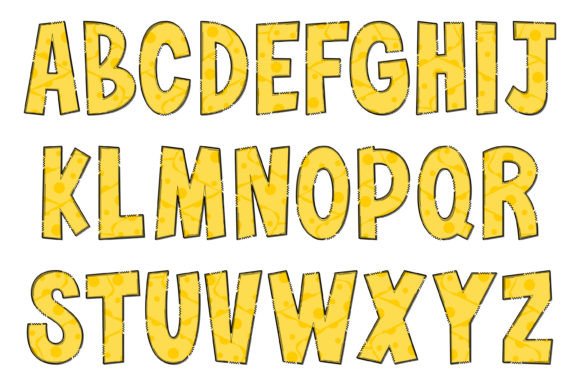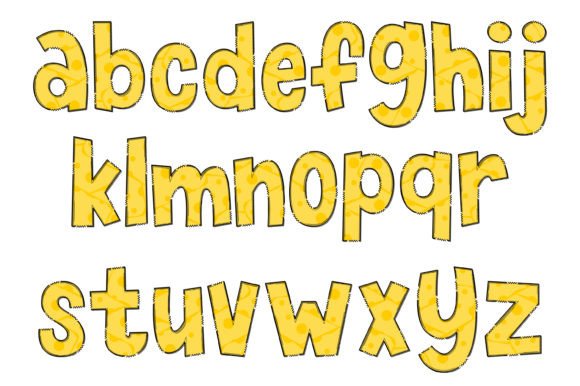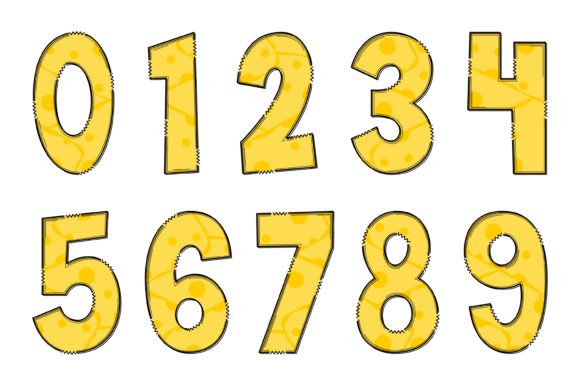
Introducing the Playful Cheese Slice Font: Elevate Your Designs with a Touch of Whimsy
Are you a designer, crafter, or DIY enthusiast looking for a font that adds a playful and artistic feel to your projects? Look no further than the Cheese Slice font! This delightful font is perfect for creating engaging designs that capture the imagination of your audience. In this article, we’ll explore the versatility of the Cheese Slice font, its compatibility with various design software, and provide valuable insights on how to make the most of this fantastic font.
The Perfect Font for Playful Designs
The Cheese Slice font is often used in designs that aim to convey a playful or artistic feel, such as children’s books, posters, invitations, greeting cards, and more. Its whimsical and colorful nature makes it an excellent choice for projects that require a touch of fun and personality. For instance, children’s books often utilize fonts that are not only visually appealing but also easy to read, creating an engaging reading experience for young audiences.
Imagine creating a children’s book that transports your readers to a world of wonder and magic. With the Cheese Slice font, you can add a dash of playfulness to your text, making it perfect for titles, headings, and even body text. The font’s unique design elements will capture the attention of your readers and make your book stand out from the crowd.
Unlocking the Full Potential of the Cheese Slice Font
Now that we’ve covered the technical aspects, let’s explore the creative possibilities of the Cheese Slice font. With its playful and artistic feel, this font is perfect for a wide range of projects, including:
- Children’s books and educational materials
- Posters, flyers, and brochures
- Invitations, greeting cards, and party decorations
The Cheese Slice font is also an excellent choice for crafters who enjoy making DIY projects, such as:
- Paper crafting and card making
- Scrapbooking and photo albums
- Iron-on designs and custom apparel
Tips and Tricks for Working with the Cheese Slice Font
To get the most out of the Cheese Slice font, here are a few tips and tricks to keep in mind:
- Experiment with different colors and textures to add depth and visual interest to your designs.
- Use the font’s unique design elements to create eye-catching headings and titles.
- Pair the Cheese Slice font with other fonts to create a unique and visually appealing typography combination.